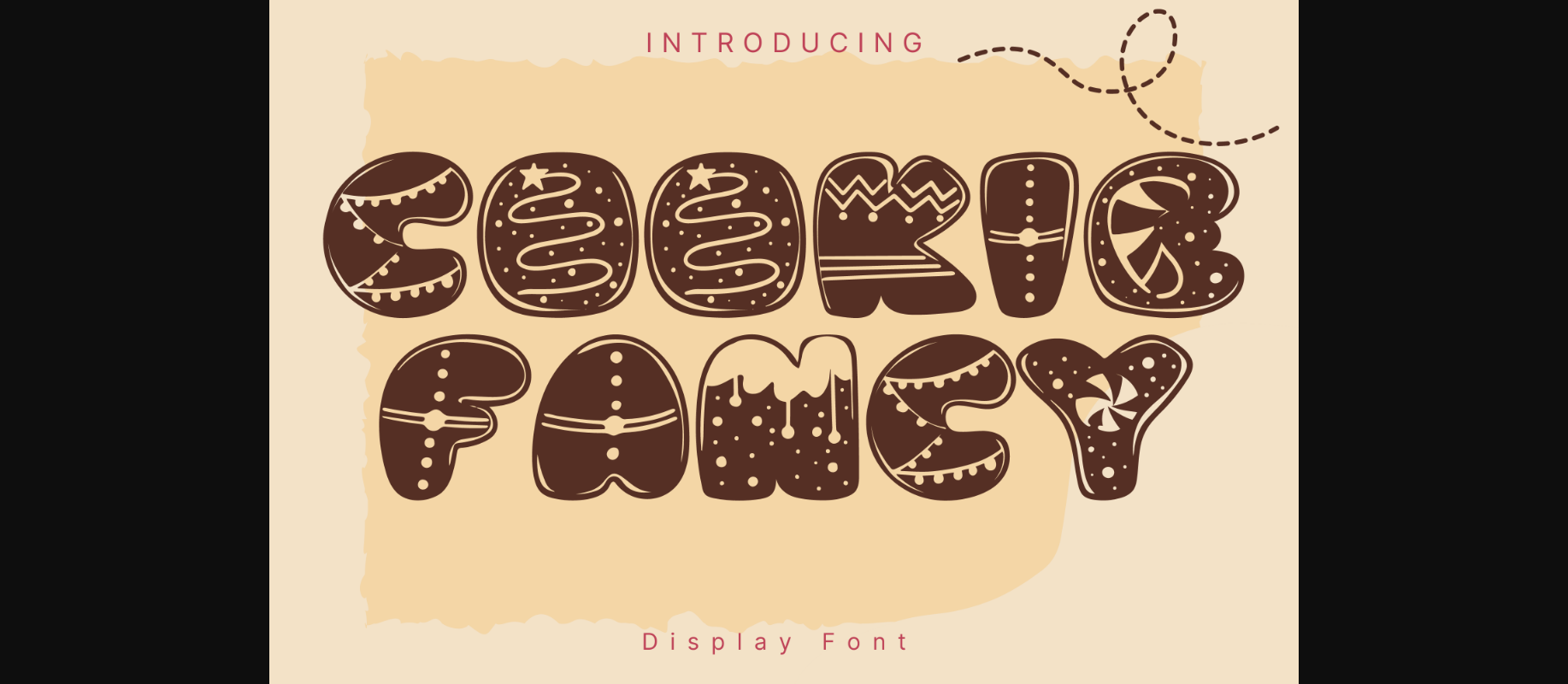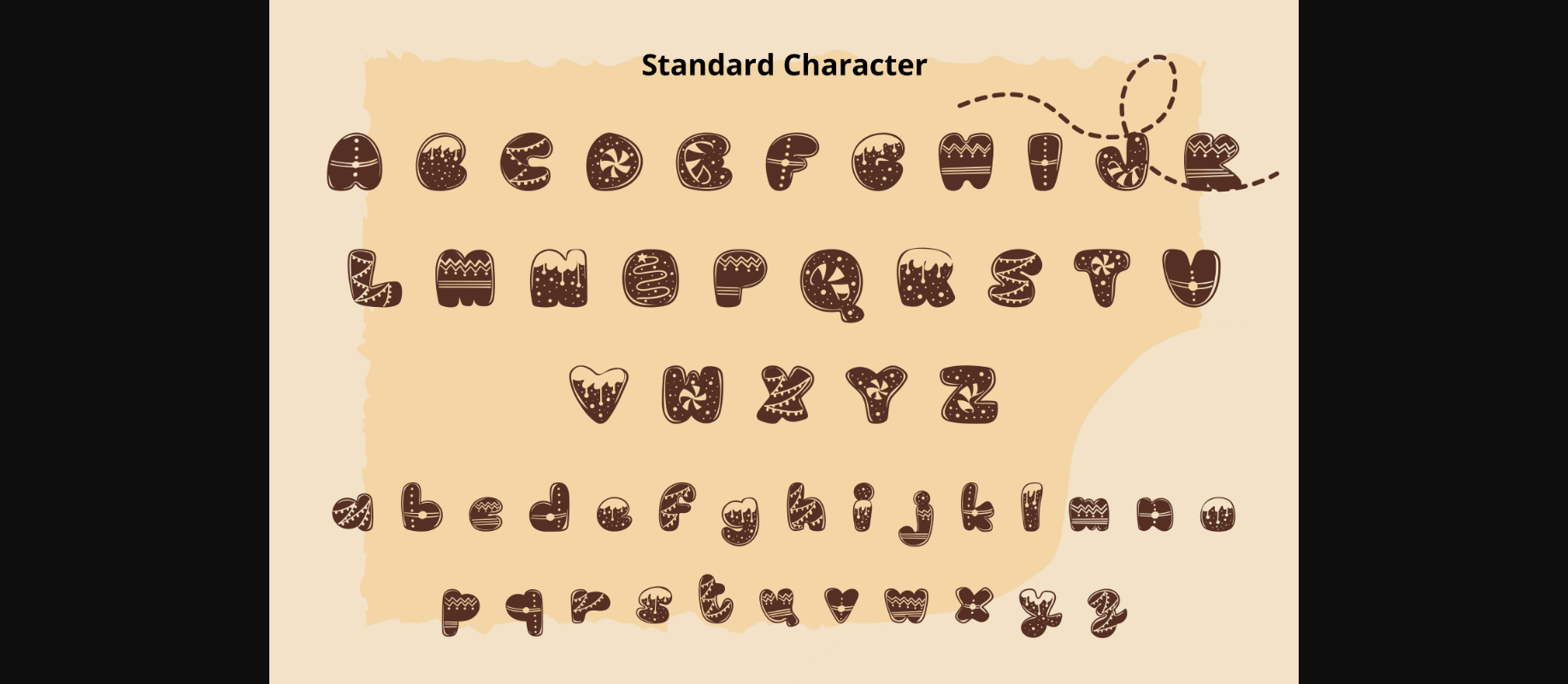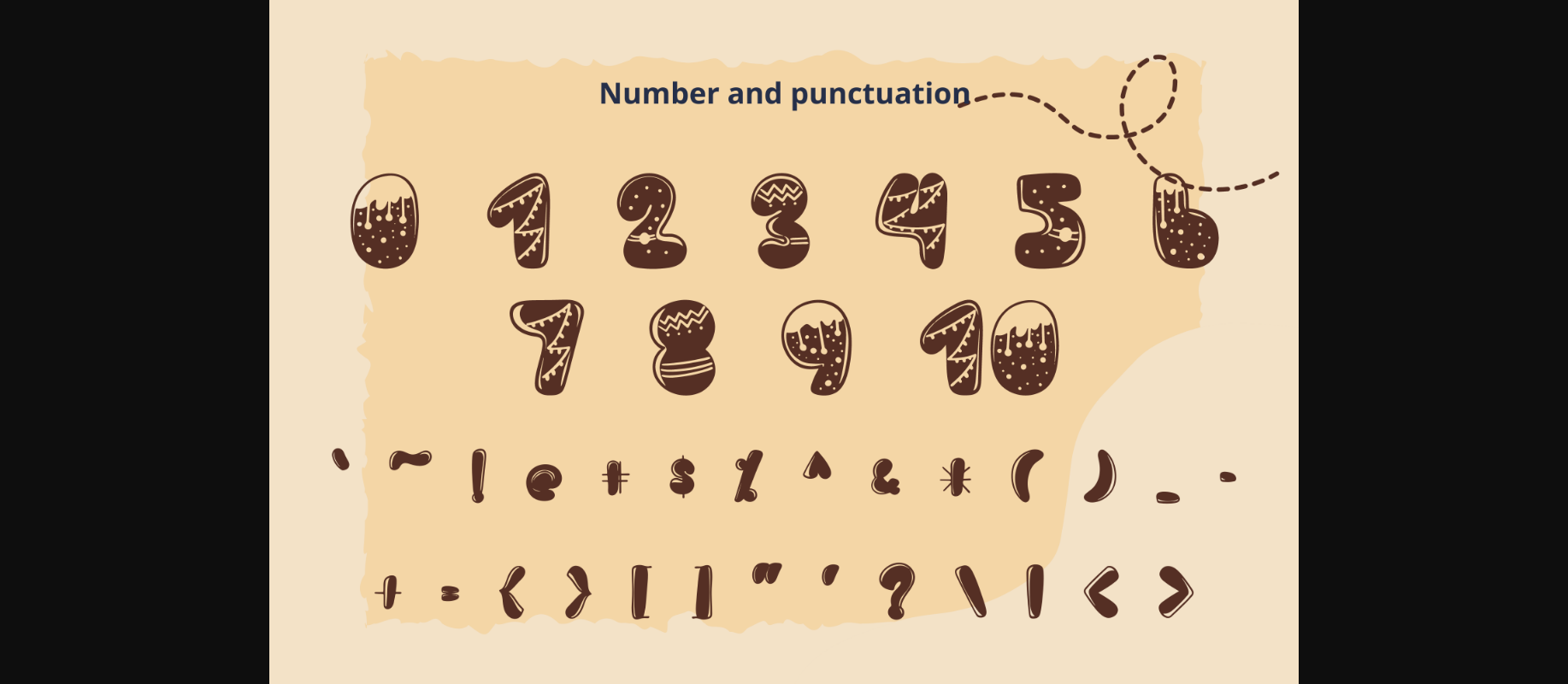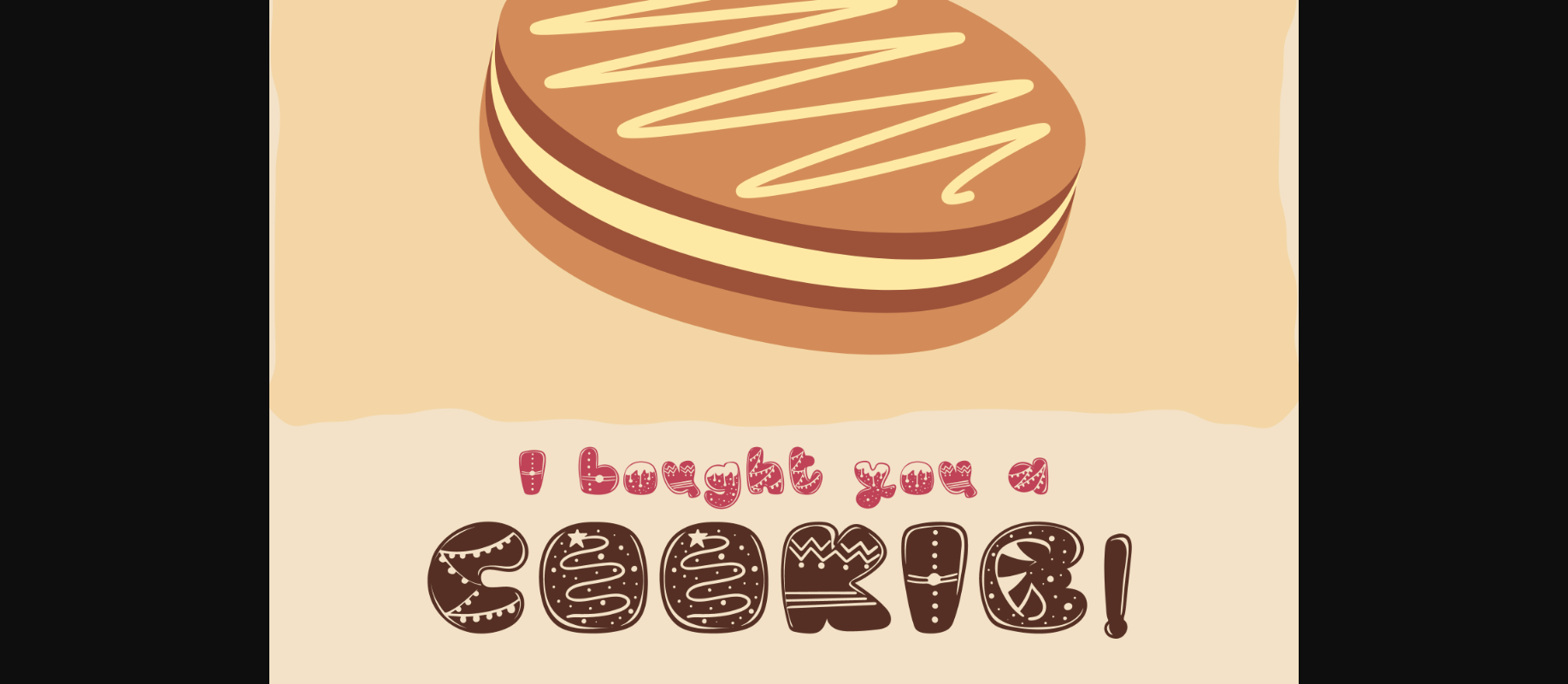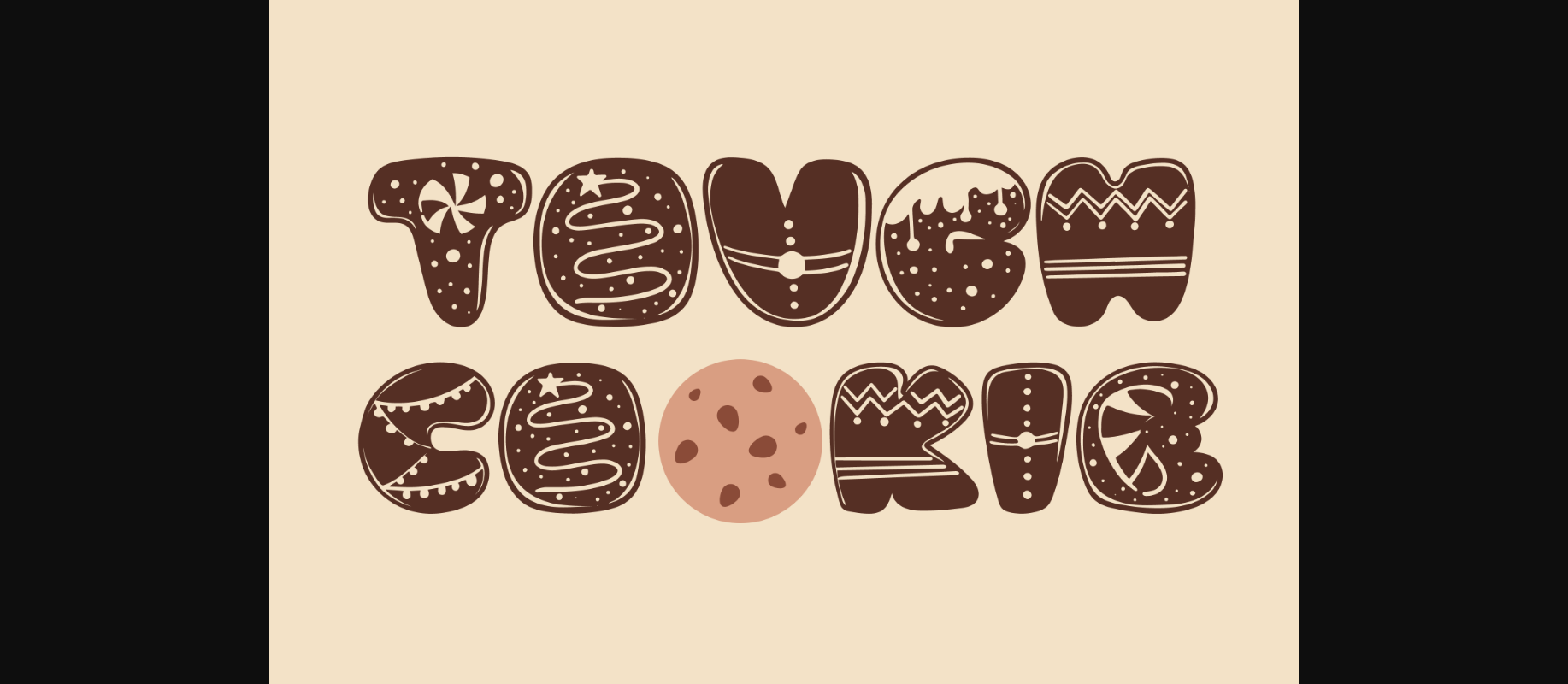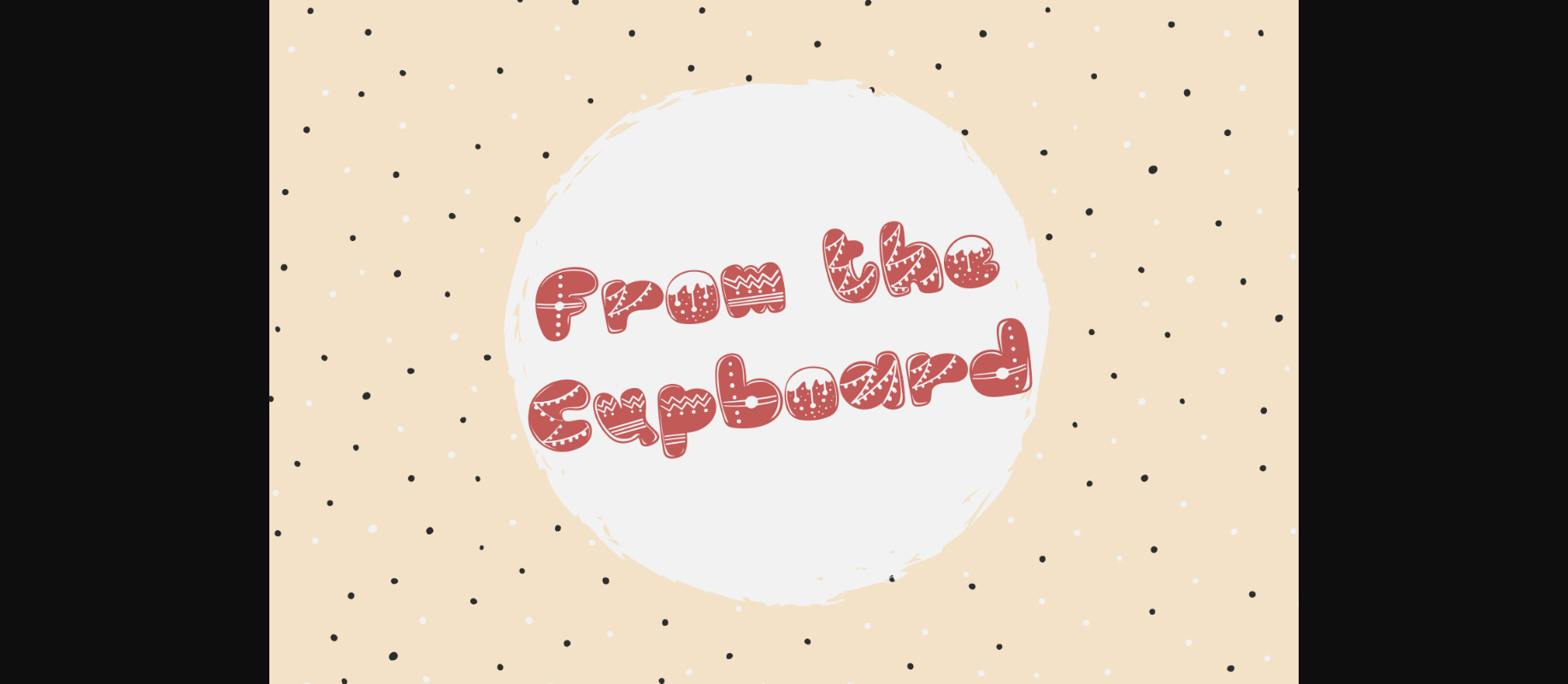
Cookie Fancy Font
About Cookie Fancy Font
Cookie Fancy is a whimsical and delicious-looking decorative font. It can easily be matched to an incredibly large set of projects, so add it to your creative ideas and notice how it makes them stand out!